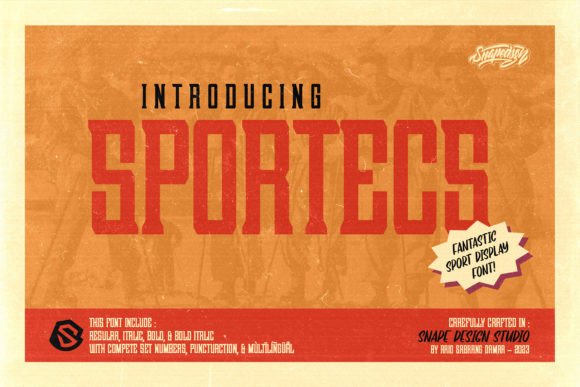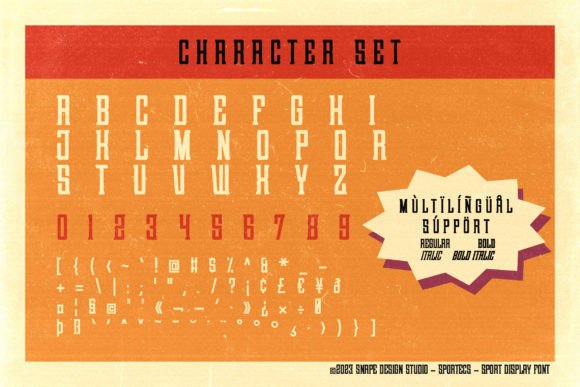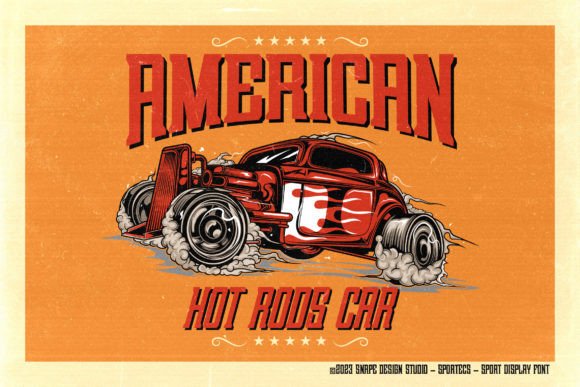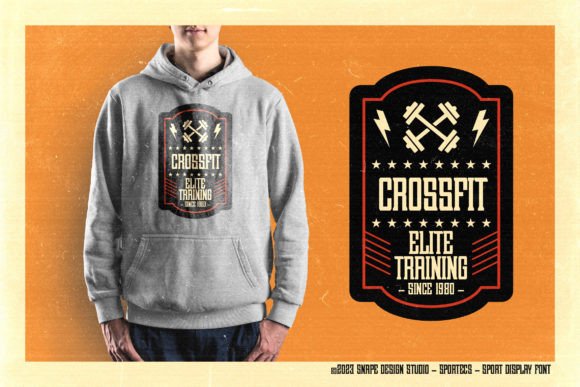
Sportecs Font: Bold Display Typography for Sporty Logo Design
About the Sportecs Font
Add a touch of class to your work with the Sportecs Font, a truly exceptional typeface. Sportecs is a cool and dynamic sport-inspired display font that is perfect for creating athletic and energetic designs. Its bold and athletic letters feature sharp angles and powerful curves, giving it a confident and competitive personality. This font is great for logos, jerseys, and other projects that require a strong and sporty font. The font’s bold and dynamic style is sure to make an impact.
Sportecs Font Usage Examples
Sportecs Font Example